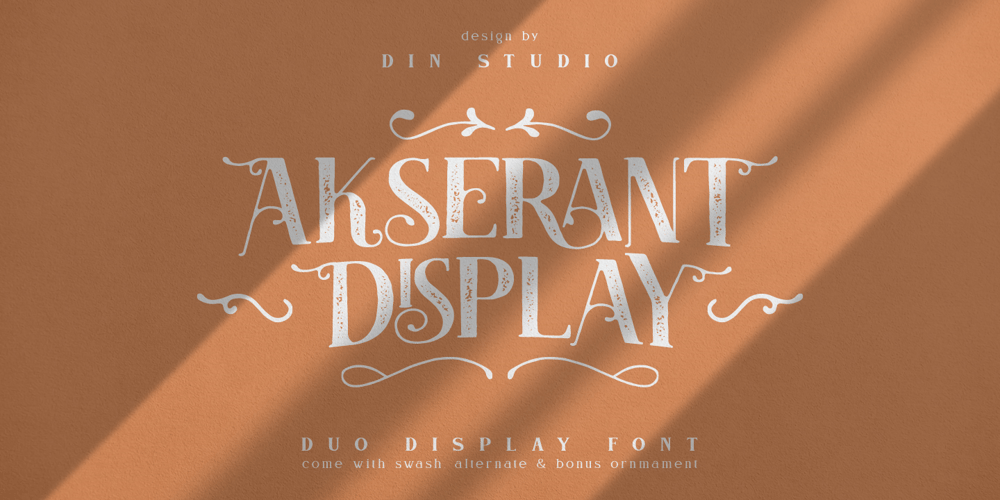
Akserant Display Font Family was designed by Donis Miftahudin and published by Din Studio. Akserant Display contains 2 styles and family package options. Akserant Display Font is an amazing display font. The font is suitable for any project like branding , lettering , tshirt print and many others. Included Files : Accents (Multilingual characters) 10 Ligatures 113 Alternates and swashes PUA encoded Numerals and Punctuation (OpenType Standard) Features with Clean and Rough Version.